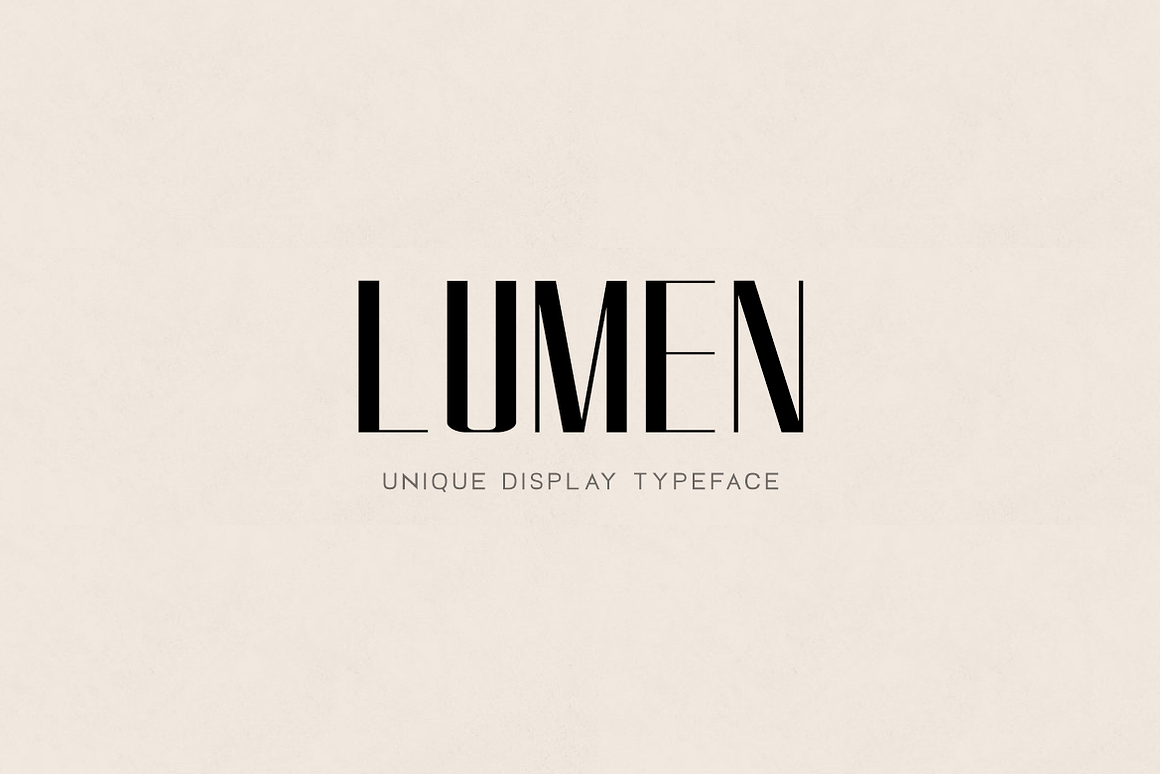
LUMEN - Display / Headline Typeface
LUMEN - Display / Headline Typeface Font is perfect for illuminating design studios, radiant advertising agencies, brilliant marketing campaigns, luminous brand identity systems, enlightening editorial publications, and captivating headline design projects. Its luminous character makes it ideal for lighting design companies, bright technology platforms, illuminated signage manufacturers, radiant wellness brands, brilliant creative agencies, and any project requiring brilliant illumination with radiant impact and enlightening communication appeal.
This font is exciting because it captures the essence of pure illumination and radiant communication while delivering exceptional functionality for organizations seeking to create brilliant visual impact and enlightening brand experiences. The brilliantly crafted letterforms seem to glow with inner light, creating typography that literally illuminates headlines and captures attention with the magnetic power of radiant design that guides audiences toward enlightening brand messages.
The LUMEN - Display / Headline Typeface Font family typically includes Light, Regular, Medium, and Bold weights with radiant alternates, illuminating ligatures, and brilliant display elements that enhance its luminous personality. This comprehensive collection enables creative professionals to create enlightening brand systems that maintain radiant credibility while offering flexibility for various headline applications requiring both brilliant impact and contemporary illumination market positioning.
Whether you're developing identity systems for illumination companies, creating materials for radiant brand campaigns, or designing headline treatments for brilliant editorial projects, LUMEN - Display / Headline Typeface Font Free Download delivers the brilliant illumination and radiant appeal that connects with audiences seeking enlightening communication and luminous brand experiences. Its glowing presence ensures memorable brand recognition across digital platforms and print materials, making it perfect for websites, mobile applications, and illumination campaigns that celebrate brilliant design, radiant communication, and the transformative power of enlightening typography with contemporary brilliance standards and authentic luminous excellence.